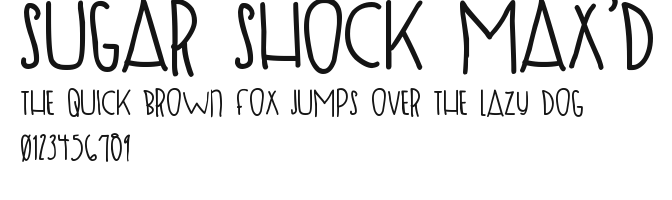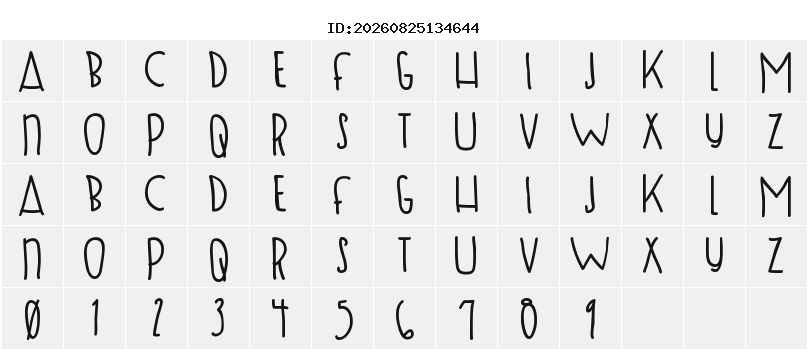
• Font Name: SUGAR SHOCK MAX'D
About SUGAR SHOCK MAX'D.ttf
SUGAR SHOCK MAX'D.ttf is a modern, elegant sans-serif font designed for ultimate readability and visual harmony. Perfect for branding, headlines, web design, and print materials.